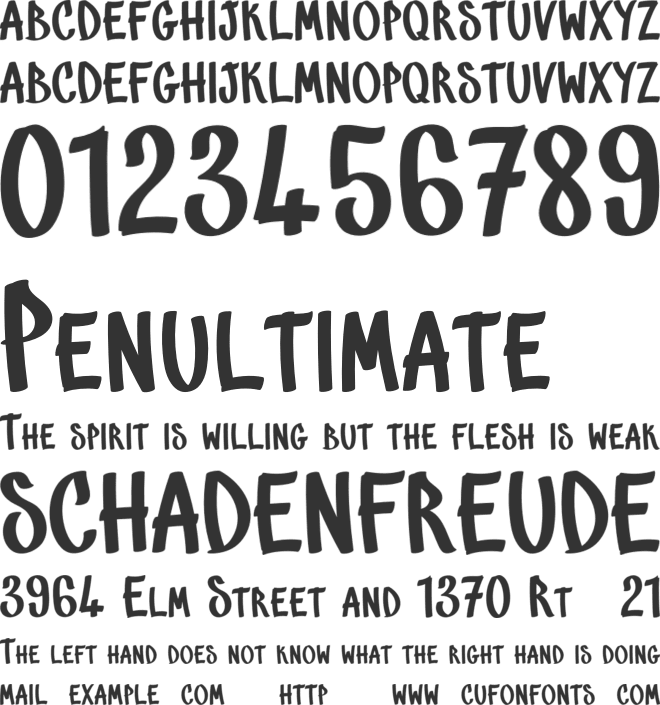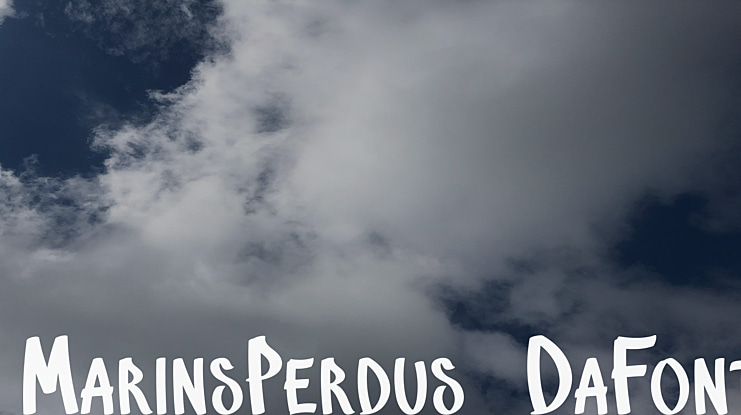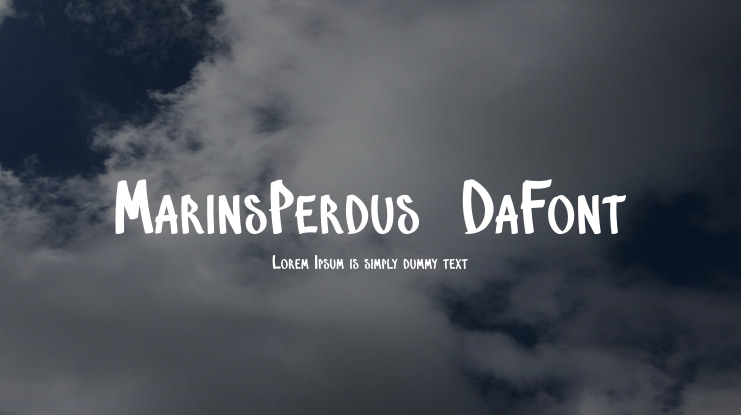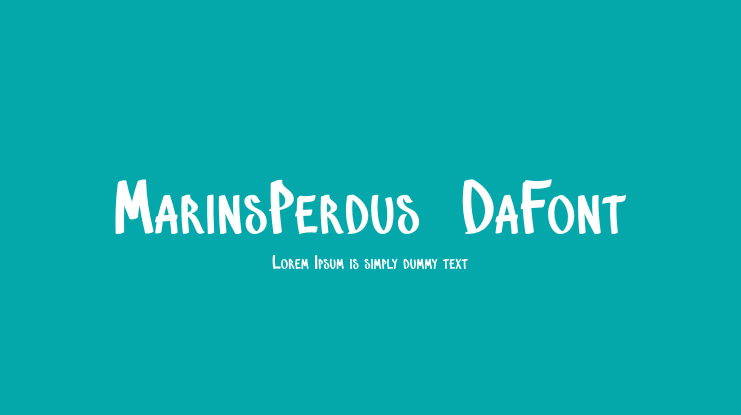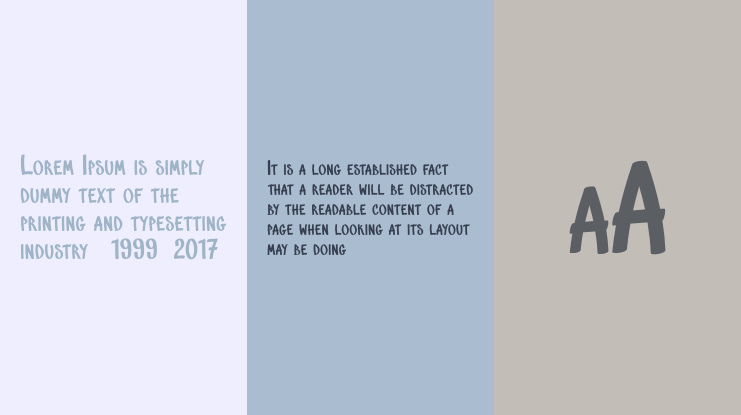
MarinsPerdus-DaFont Font
This font is inspired by graffiti calligraphy, it's only block letters in a modern style and more readable. The name "Marins Perdus" is from a novel by Jean-Claude Izzo "Les Marins Perdus", set in Marseille. The letters of "Marins Perdus" have a light inclination to the left, slim letters in a cool style, perfect for a title or a street event.